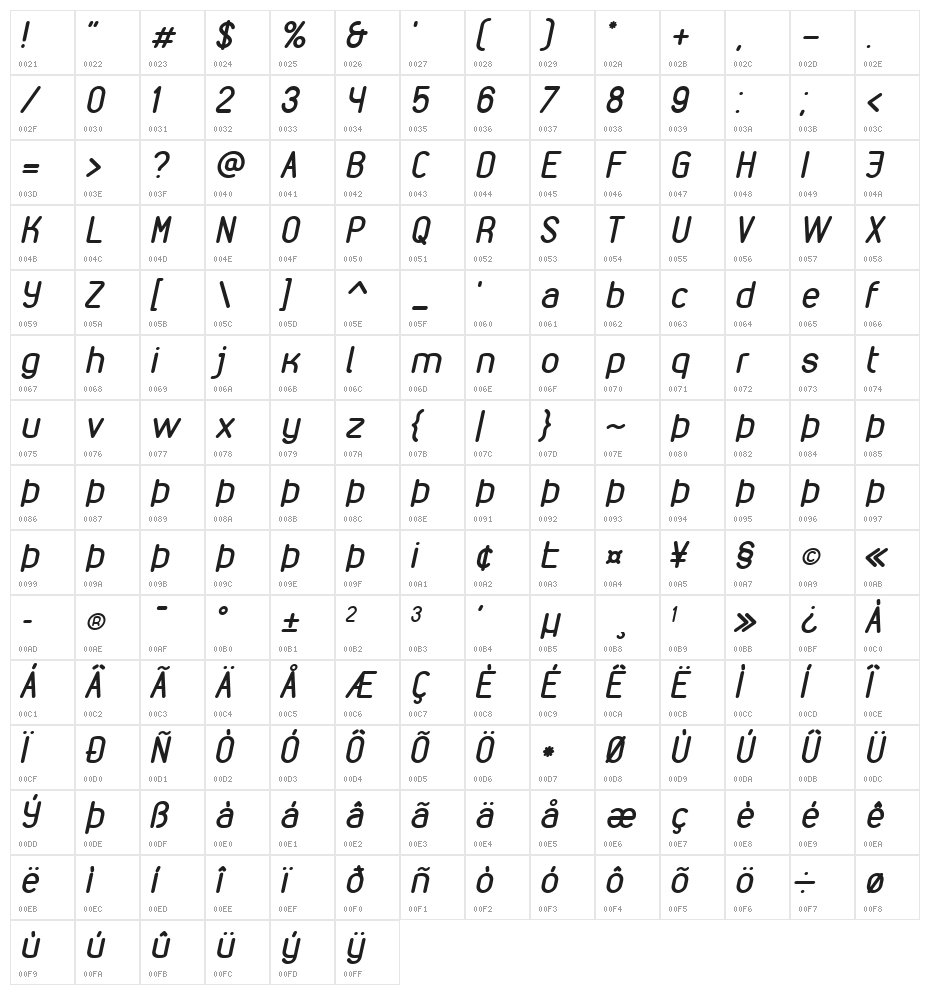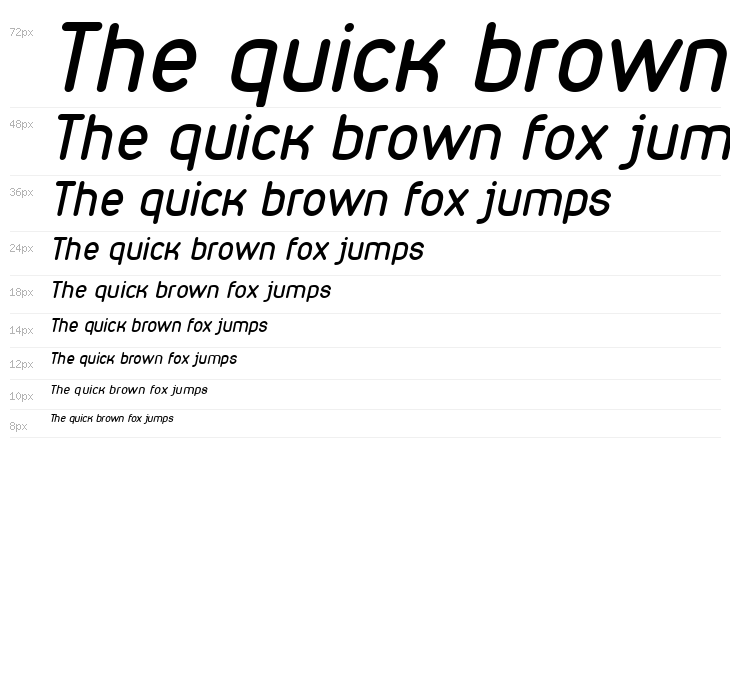
VDS Italic Font
VDS Italic Description
This font features a sleek, modern design with a slight italic slant, giving it a dynamic and forward-moving appearance. The characters are rounded and smooth, providing a friendly and approachable feel. The uniform stroke width across all characters ensures a clean and consistent look, making it suitable for a variety of applications. The numerals and special characters are well-integrated, maintaining the overall style of the font. The spacing between characters is balanced, allowing for easy readability while maintaining a compact form. This font's contemporary style makes it ideal for modern branding and digital interfaces.
| Use Case | Logos, Headlines, Digital Interfaces |
| Proposed Projects | Ideal for branding, digital interfaces, advertising, and modern web design. |